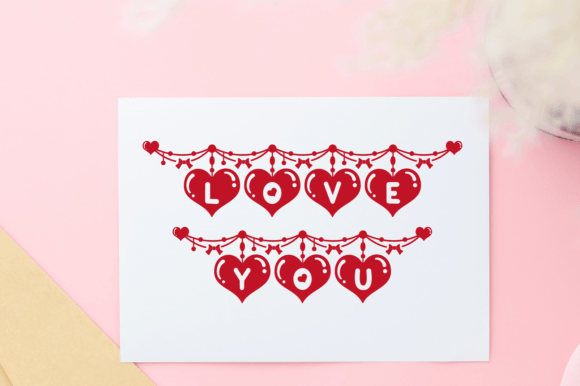
Festive Love Font
Festive Love Decorative is perfect font for spreading joy this holiday season! Featuring charming heart-shaped letters, this font is ideal for Christmas cards, Valentine’s Day, gift tags, or holiday crafts. Add a touch of love and festivity to your designs with this unique and playful font!